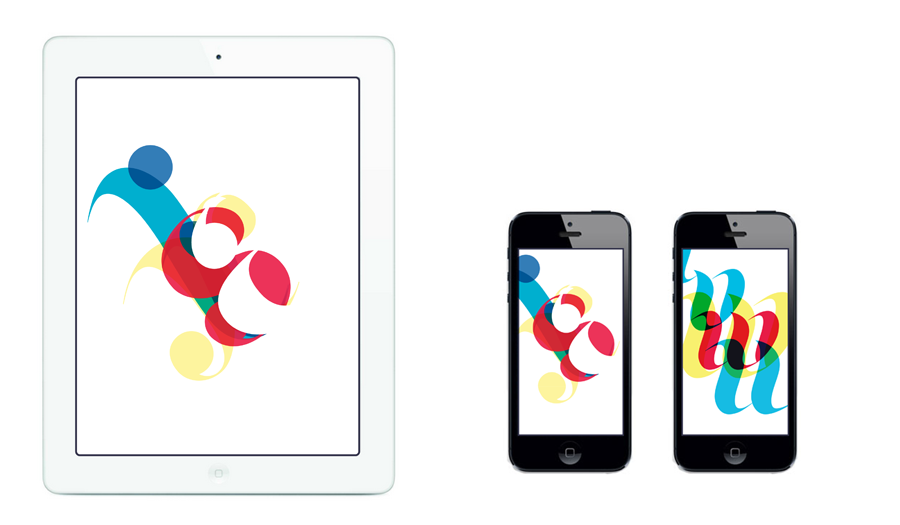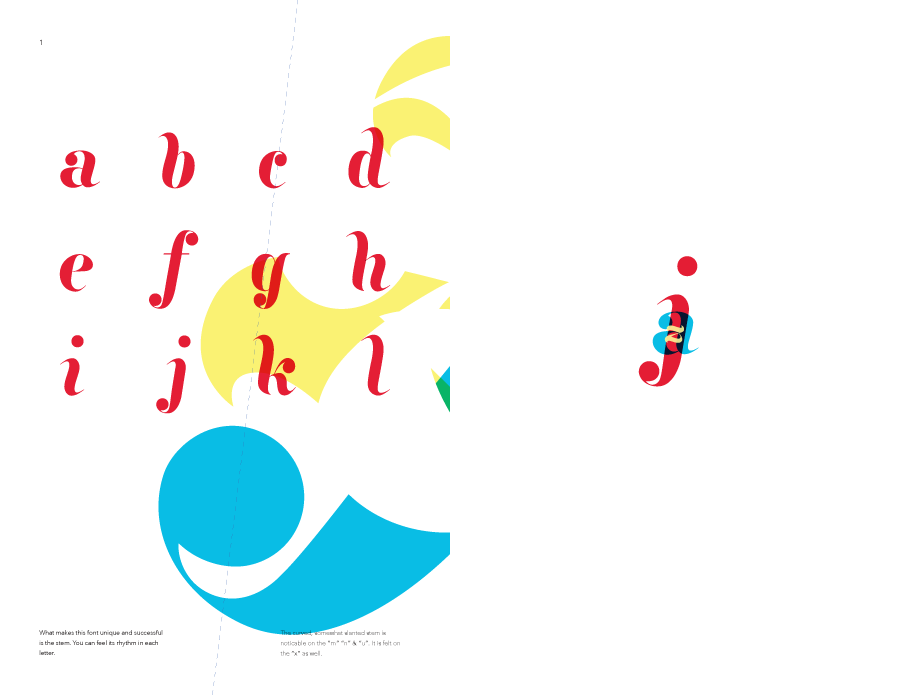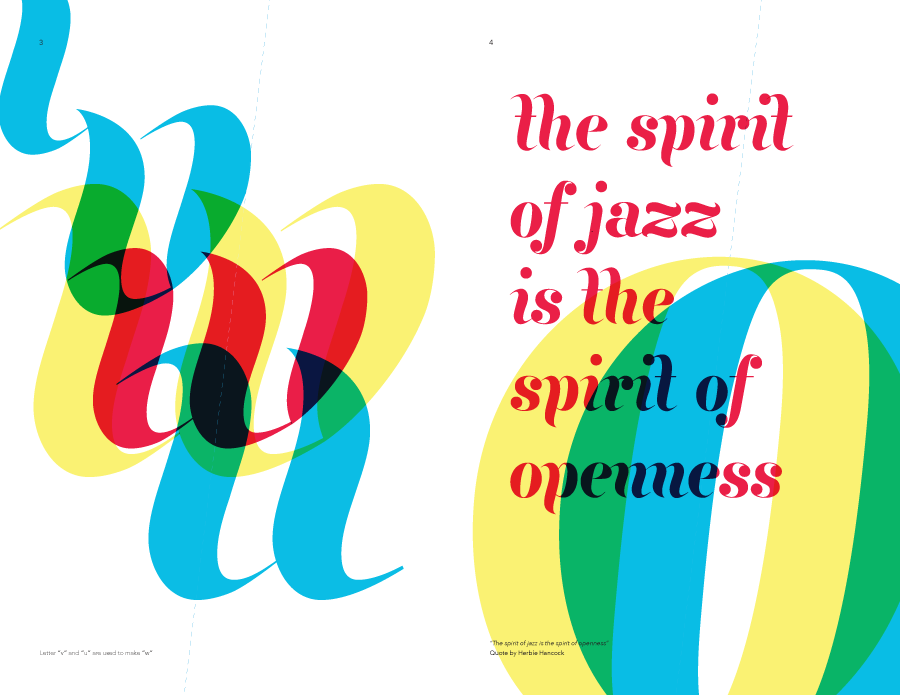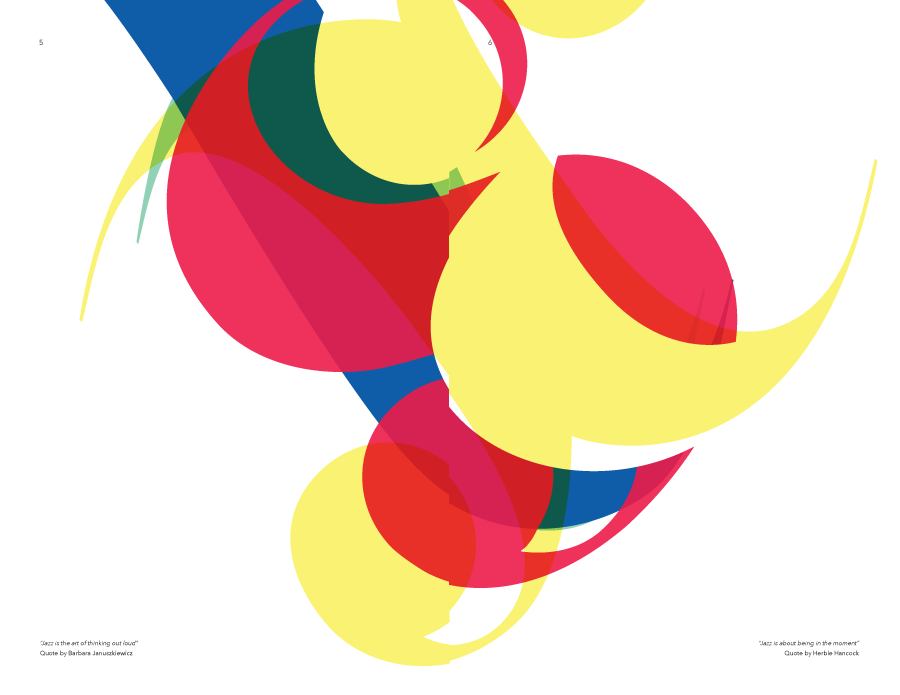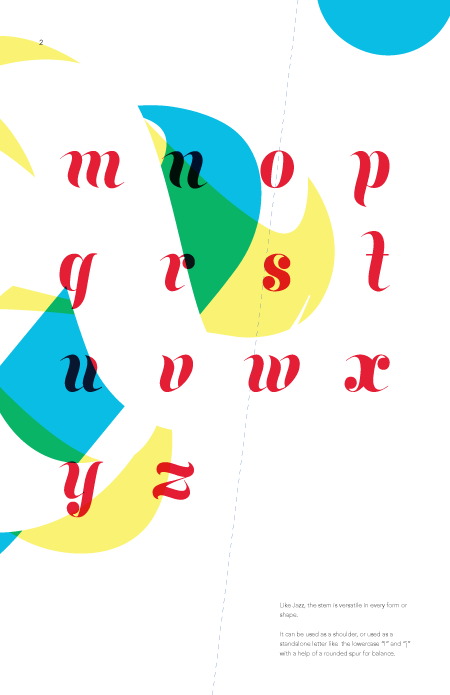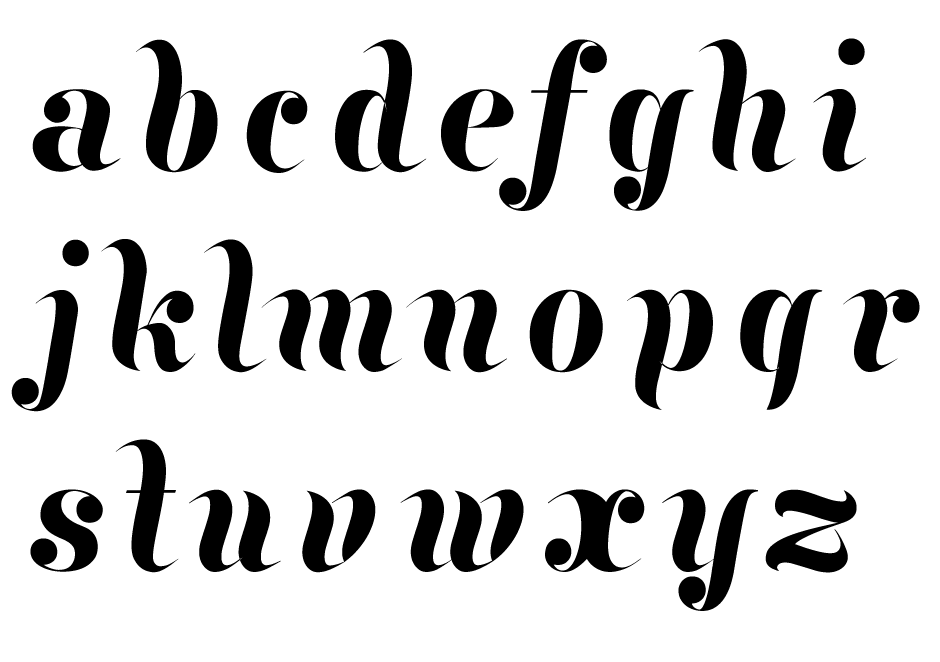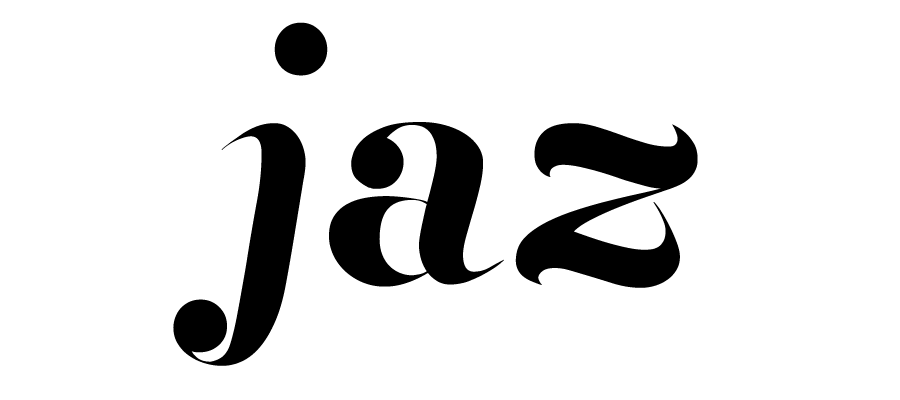
jaz (in process)
by Housseynou Fall
WHAT A rhythm stem in relation to jazz
WHO Housseynou Fall
WHAT Jaz is a subtle cursive font that has a rhythm stem in relation to jazz. Like Jazz, the stem is versatile in every form or shape. It can be used as a shoulder or used as a standalone letter. Jaz's success is due to its slanted stem in each letter.